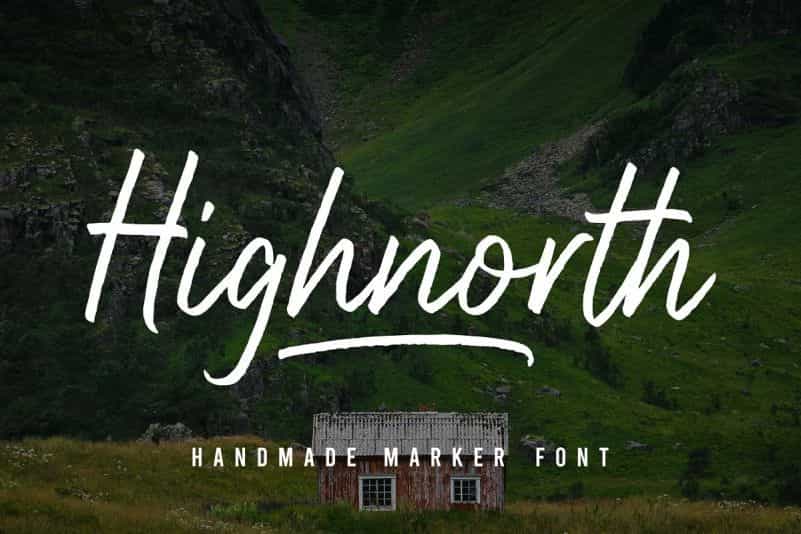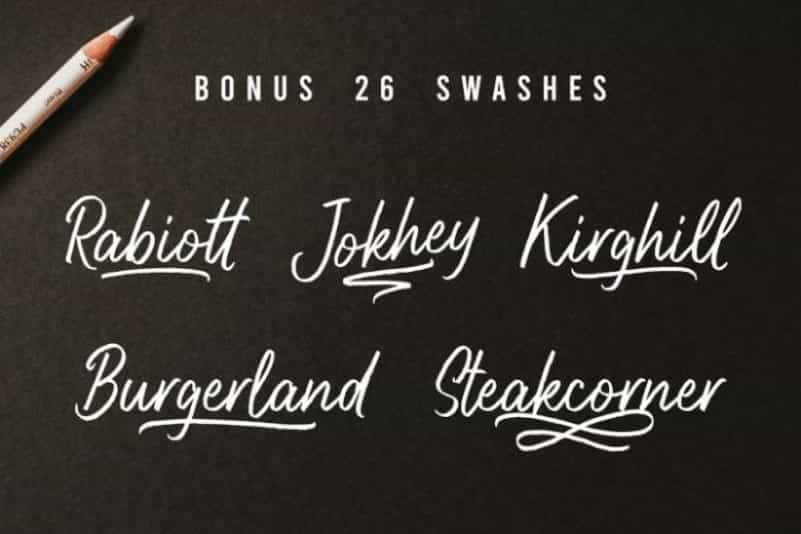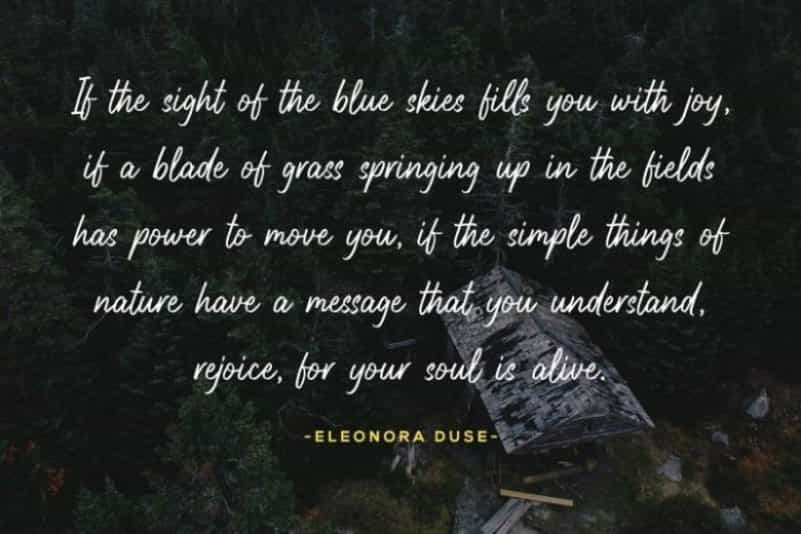
Introducing Highnorth Font. Yeah, this is handmade marker font we created it with a small retro / grunge look and placed it in creative casual category. It is best suitable for product packaging, every handmade product, greeting cards, photography, and nature related to give the sense of product authenticity.